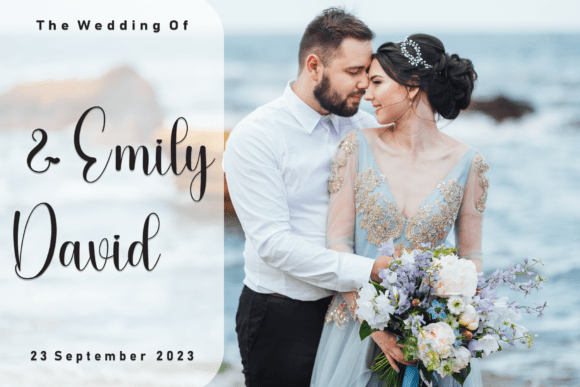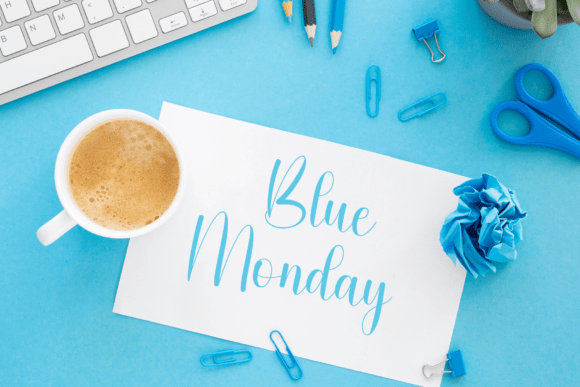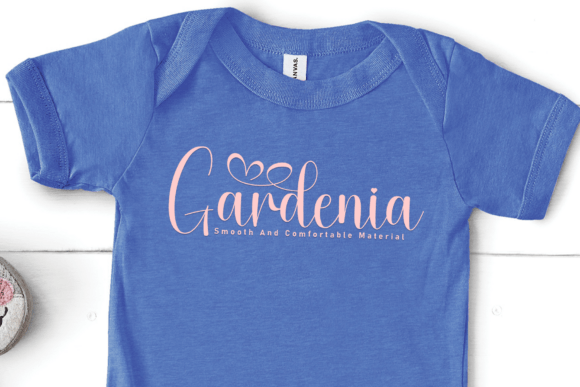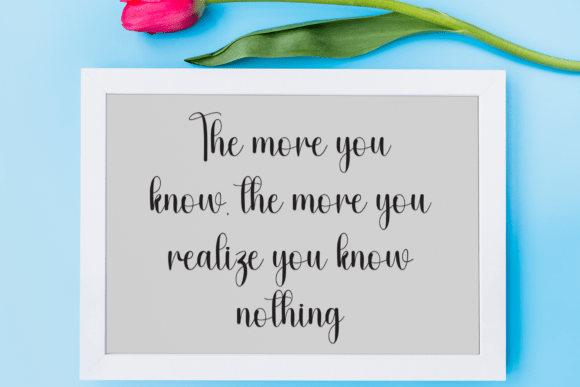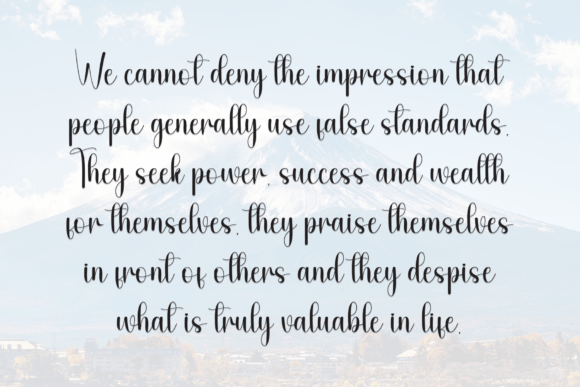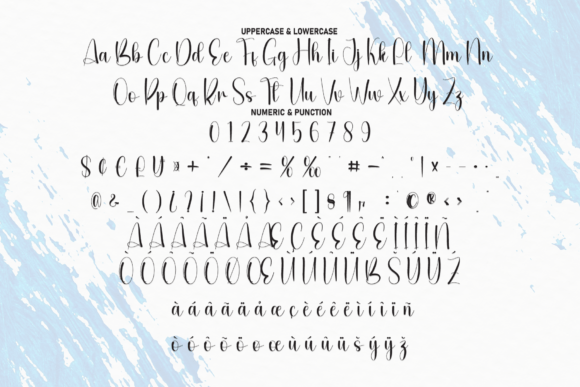
Introducing Brush Font: Elevate Your Designs with Elegance and Charm
In the world of typography, few fonts capture the essence of elegance and charm as beautifully as the Brush Font. This stylish handwritten script font is designed to bring a touch of sophistication and warmth to any design, making it perfect for creatives, designers, and crafters looking to add a personal touch to their projects.
The Beauty of Brush Font
Brush Font is characterized by its fluid strokes and natural flow, which create a captivating and refined look. The font’s elegant curves and lines evoke a sense of luxury and creativity, making it an ideal choice for designs that require a high level of sophistication. Whether you’re working on invitations, branding, or social media graphics, Brush Font is sure to elevate your designs and leave a lasting impression.
Key Features of Brush Font
- Fluid Strokes: Brush Font’s fluid strokes give it a natural, hand-painted look that’s both elegant and charming.
- Natural Flow: The font’s natural flow creates a sense of movement and energy, making it perfect for designs that require a dynamic touch.
- Elegant Curves: Brush Font’s elegant curves and lines add a touch of sophistication to any design, making it ideal for luxury brands and high-end projects.
- Warmth and Creativity: The font’s warm and creative feel makes it perfect for designs that require a personal touch, such as invitations, greeting cards, and social media graphics.
Uses of Brush Font
Brush Font is a versatile font that can be used in a variety of design projects, including:
- Invitations: Add a touch of elegance and sophistication to your invitations with Brush Font.
- Branding: Use Brush Font to create a luxurious and refined brand identity that sets you apart from the competition.
- Social Media: Elevate your social media graphics with Brush Font’s elegant and charming look.
- Greeting Cards: Add a personal touch to your greeting cards with Brush Font’s warm and creative feel.
Tips for Using Brush Font
To get the most out of Brush Font, here are a few tips to keep in mind:
- Use it sparingly: Brush Font is a statement font, so use it sparingly to avoid overwhelming your design.
- Pair it with a sans-serif font: Pair Brush Font with a sans-serif font to create a beautiful contrast and add visual interest to your design.
- Experiment with colors: Brush Font looks great in a variety of colors, so don’t be afraid to experiment and find the perfect hue for your design.
Brush Font is a stylish and elegant handwritten script font that’s perfect for designers and crafters looking to add a touch of sophistication and charm to their designs. With its fluid strokes, natural flow, and elegant curves, Brush Font is sure to elevate your designs and leave a lasting impression. Whether you’re working on invitations, branding, or social media graphics, Brush Font is a versatile font that can help you achieve your design goals.